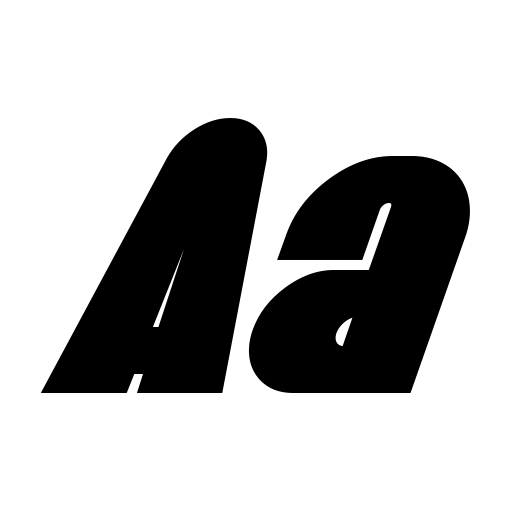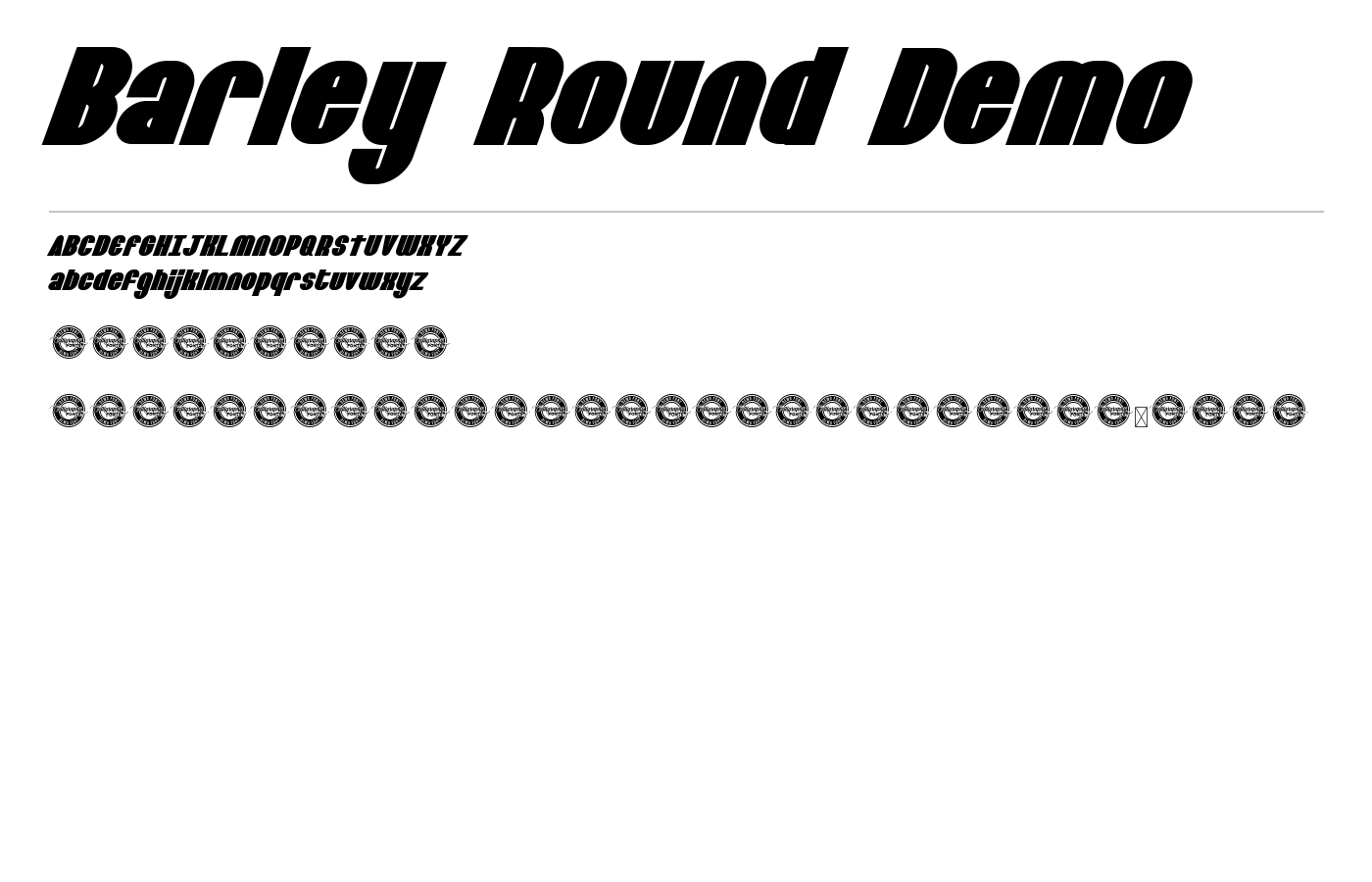
Barley Round Demo is a bold, condensed sans-serif font with a dynamic, modern feel. Its strong, rounded letterforms and high contrast strokes create a striking, energetic appearance perfect for attention-grabbing headlines, branding, and posters. This font works well in designs that need a confident, contemporary vibe.
Barley Round Demo Font
About Barley Round Demo Font